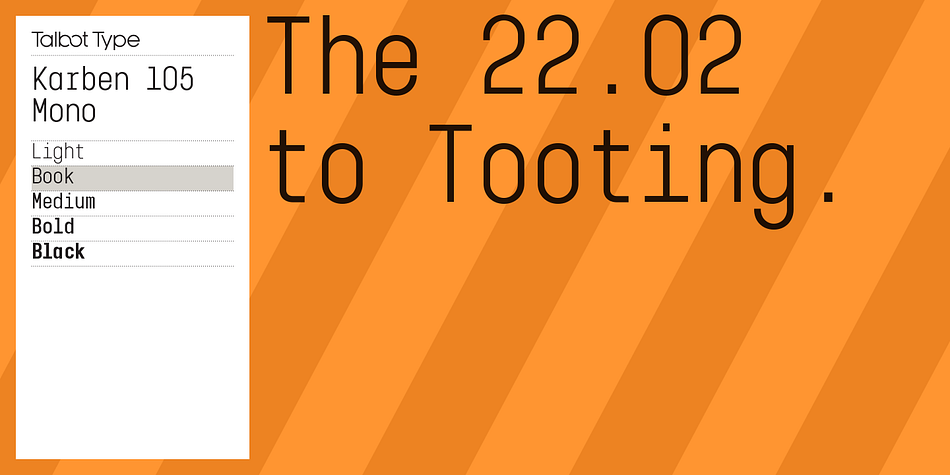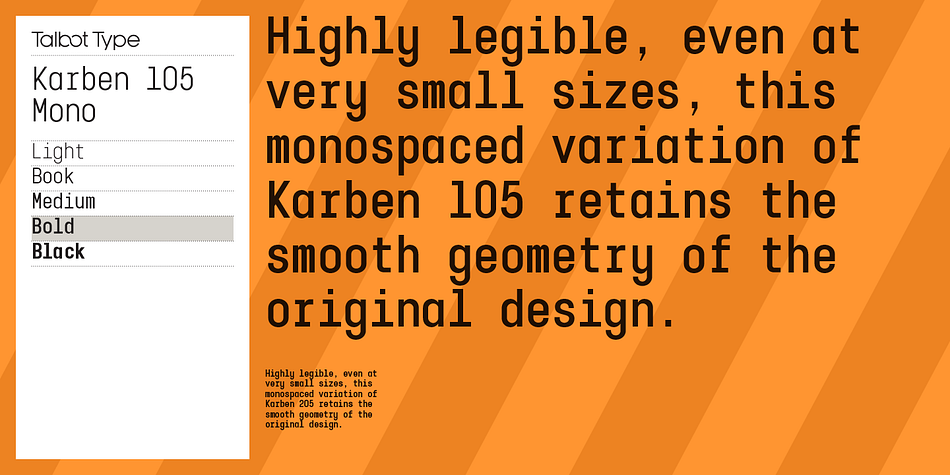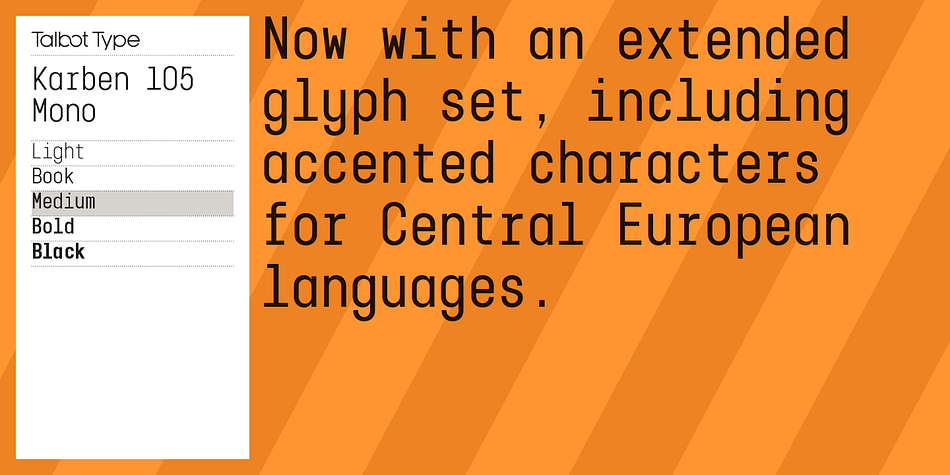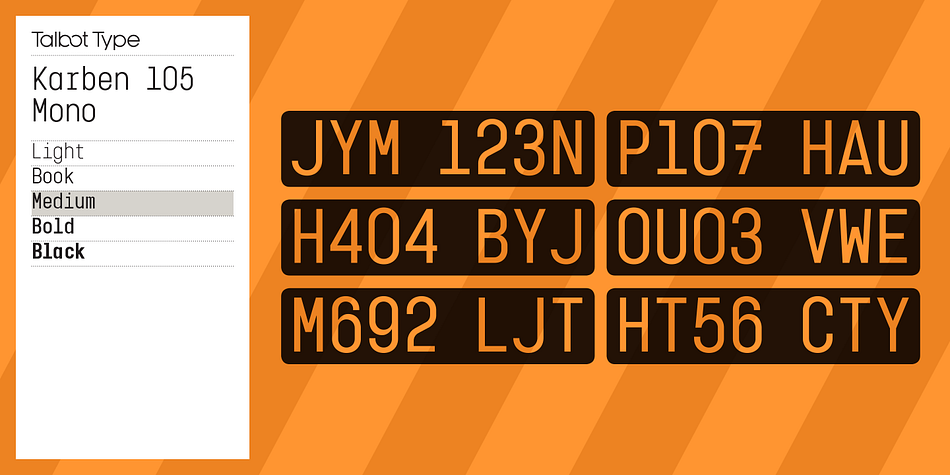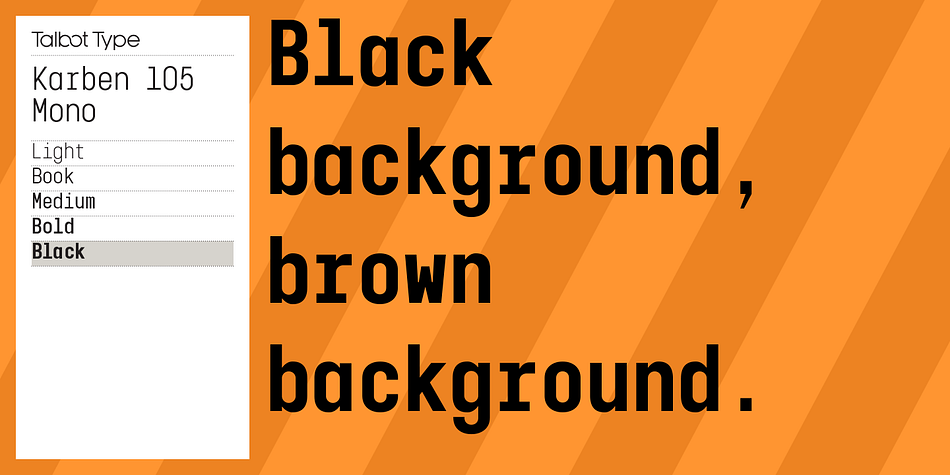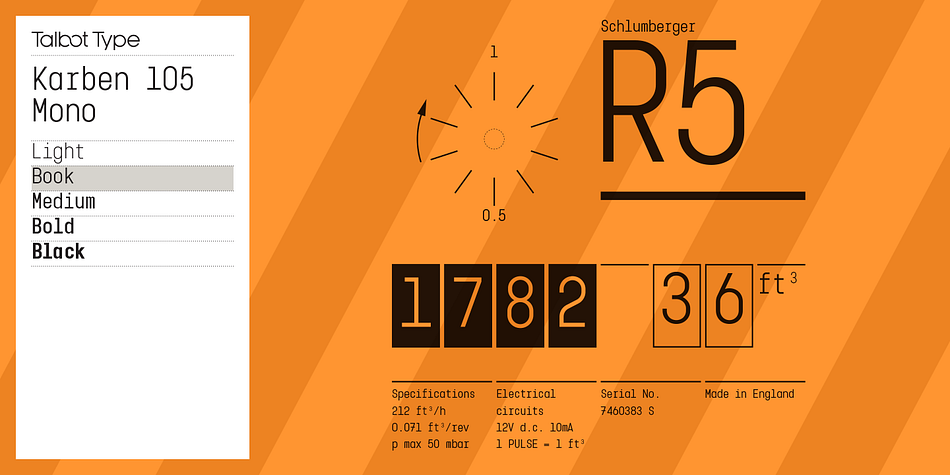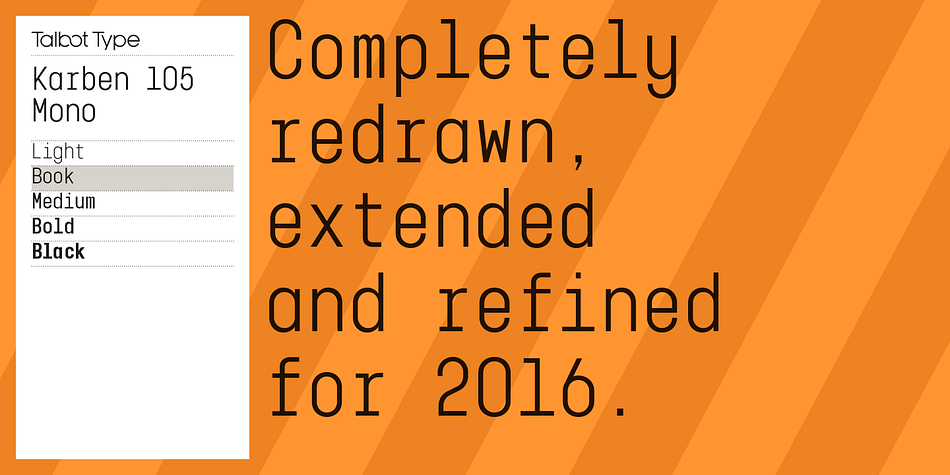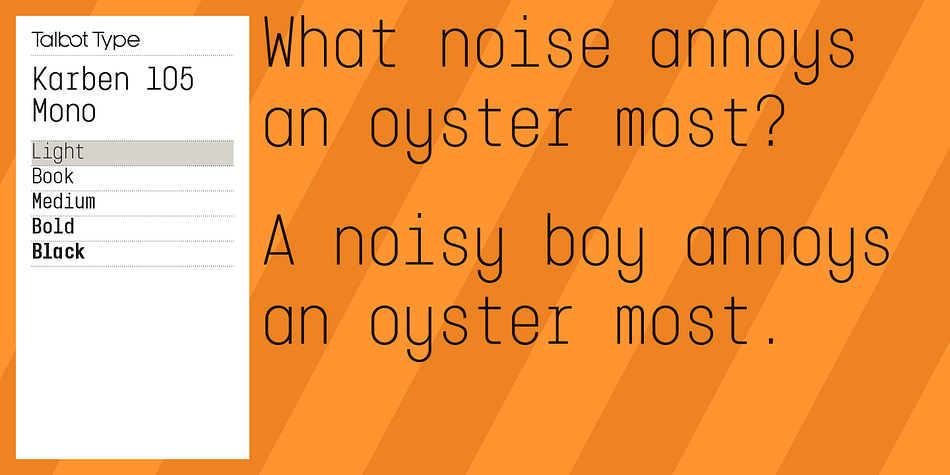
Karben 105 Mono is a sans serif and typewriter font family. This typeface has ten styles and was published by Talbot Type.
Karben 105 Mono is a monospaced variation of Karben 105. The clean and pure geometry of Karben 105 makes it highly suitable for adaptation to this monospaced variant. It has an even look and retains its legibility at very small sizes.
Karben 105 Mono is available in a family of five weights. Karben 205 Mono is also available as a monospaced variant of Karben 205. There is also a stencil version of Karben 105 available.
All of the Karben fonts feature an extended character set, including accented characters for Central European languages.